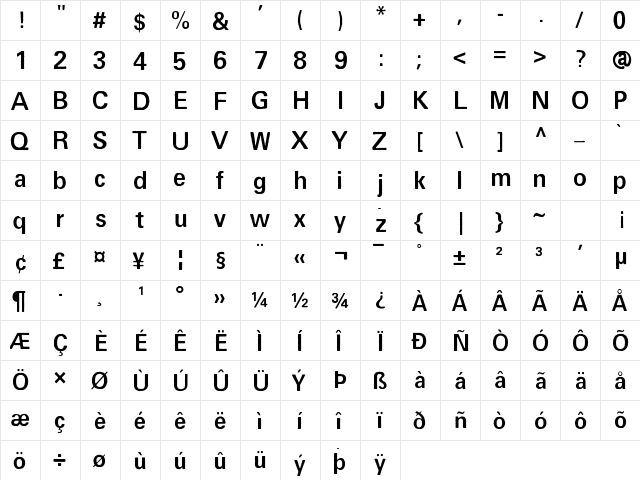
Univers Else Bold
Design Context for Univers Else Typeface
Univers Else takes a measured approach to typography — its balanced proportions and neutral character make it a reliable workhorse for both digital and print work. The heavy weight commands attention and anchors typographic hierarchies.